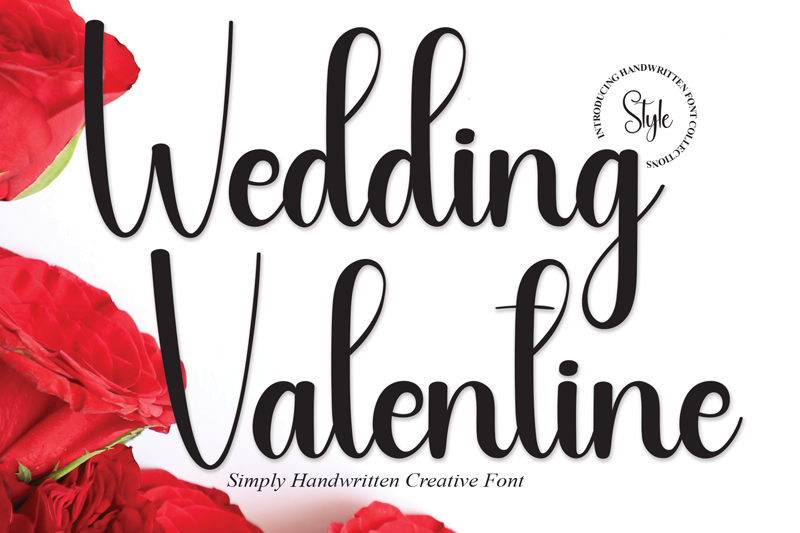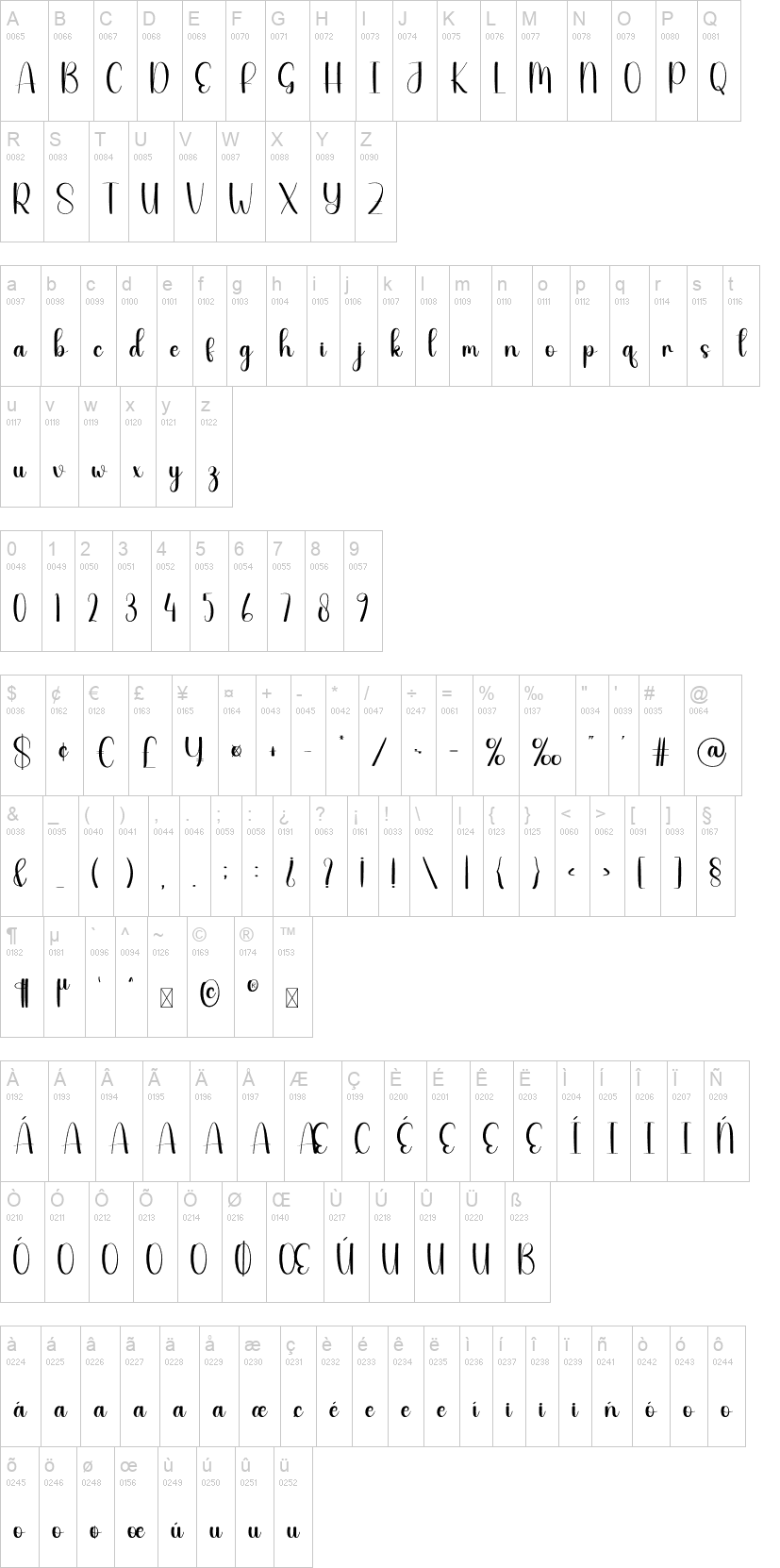
Wedding Valentine
Note of the authorthis is a sweet and friendly handwritten display font. Cute and fun, this font is ideal for writing wedding invitations, cards, or any other design that might need a playful touch!